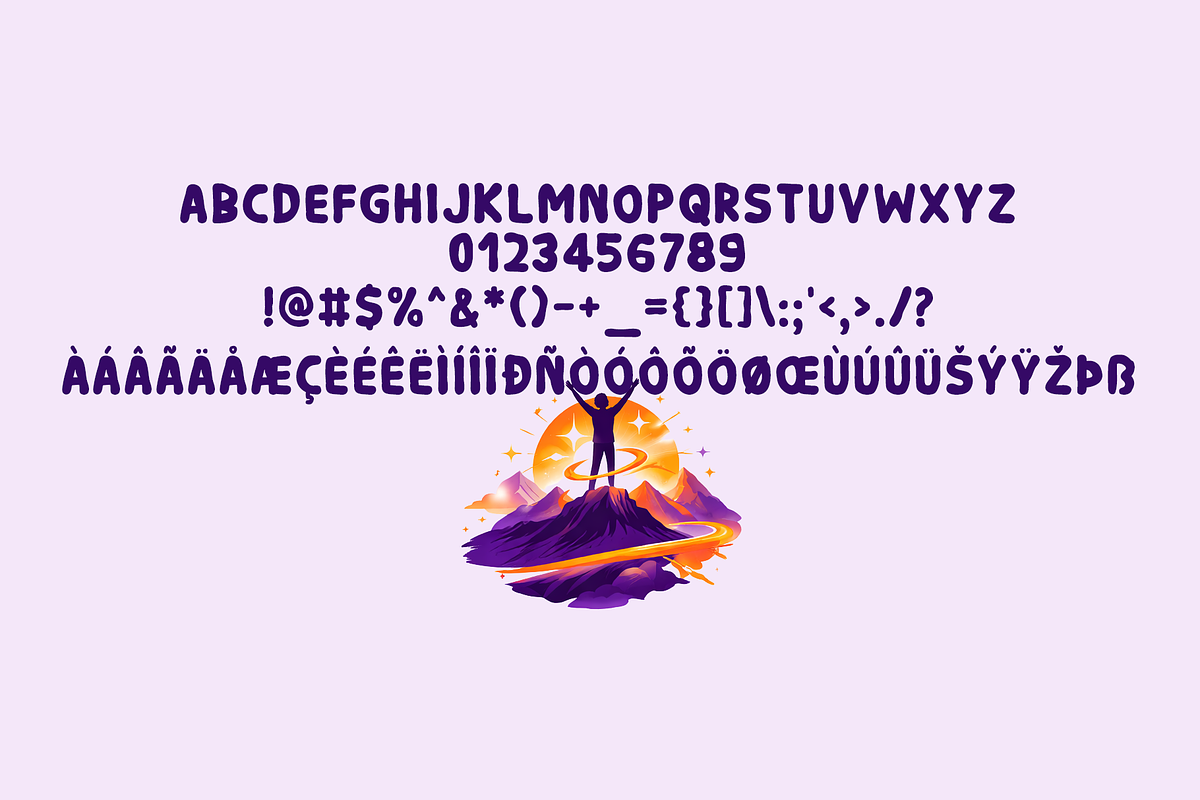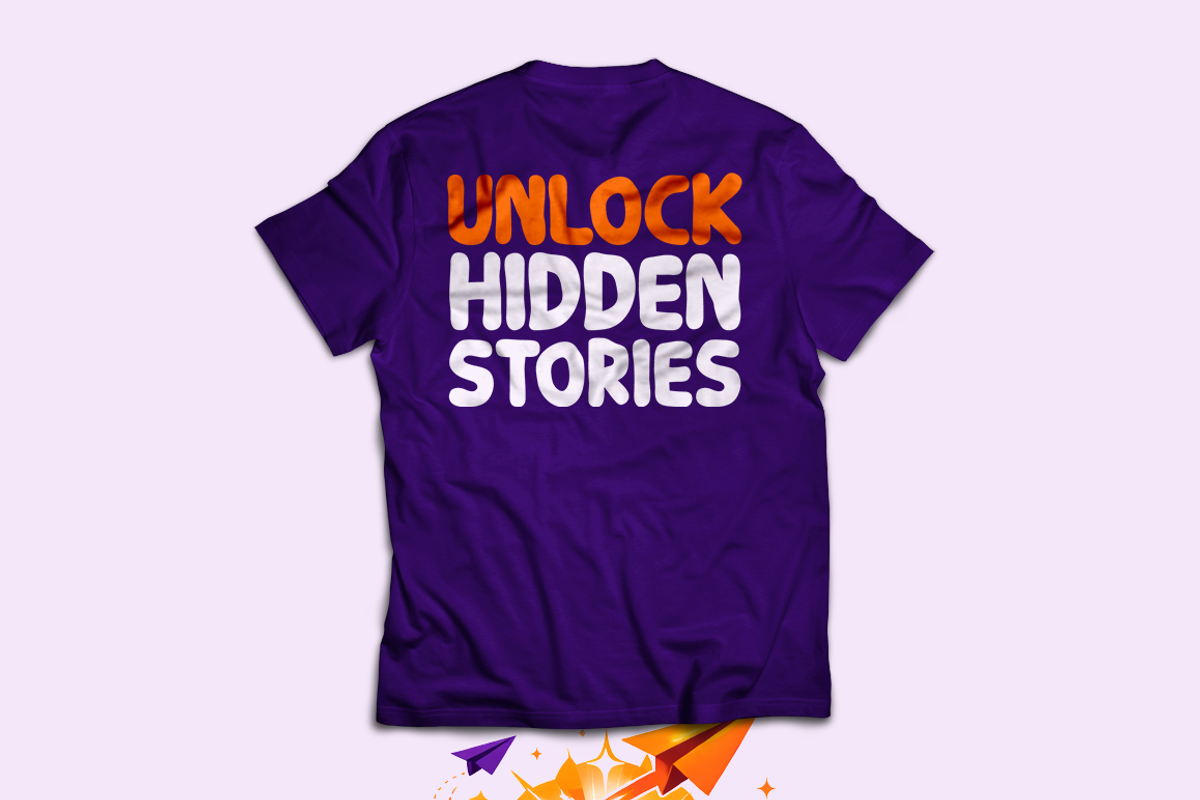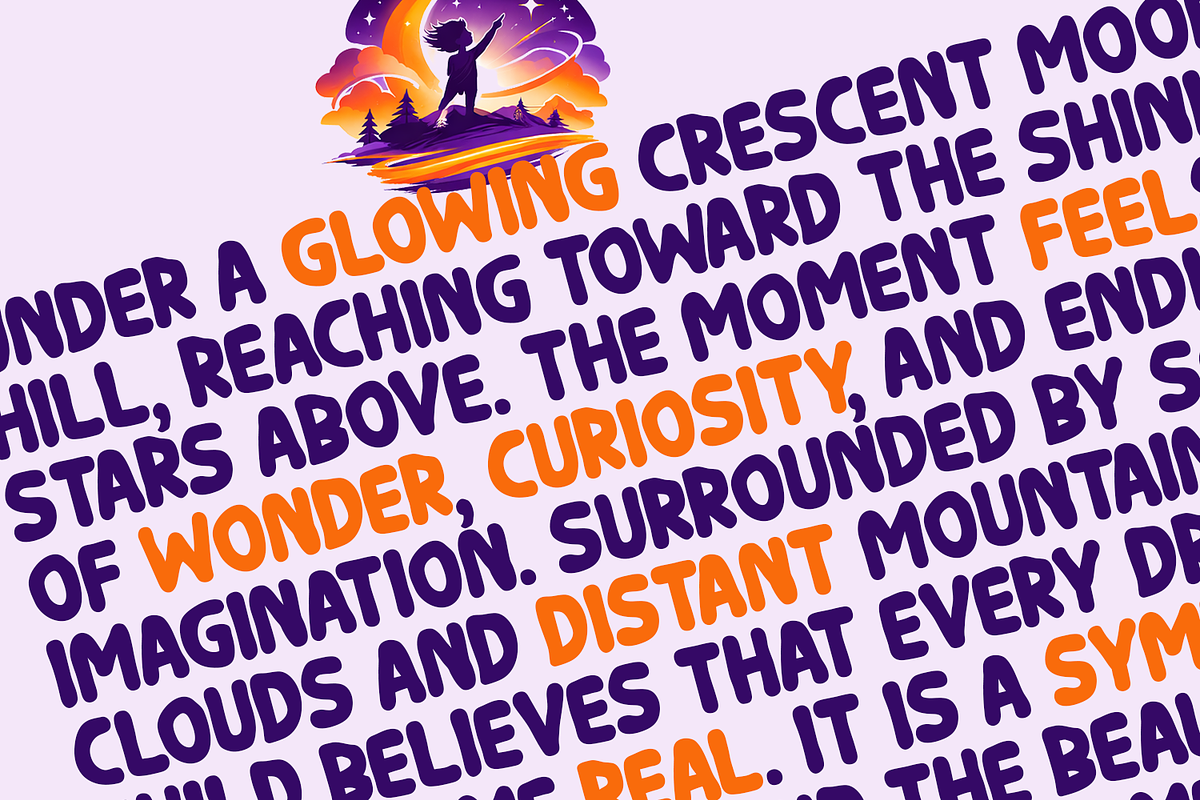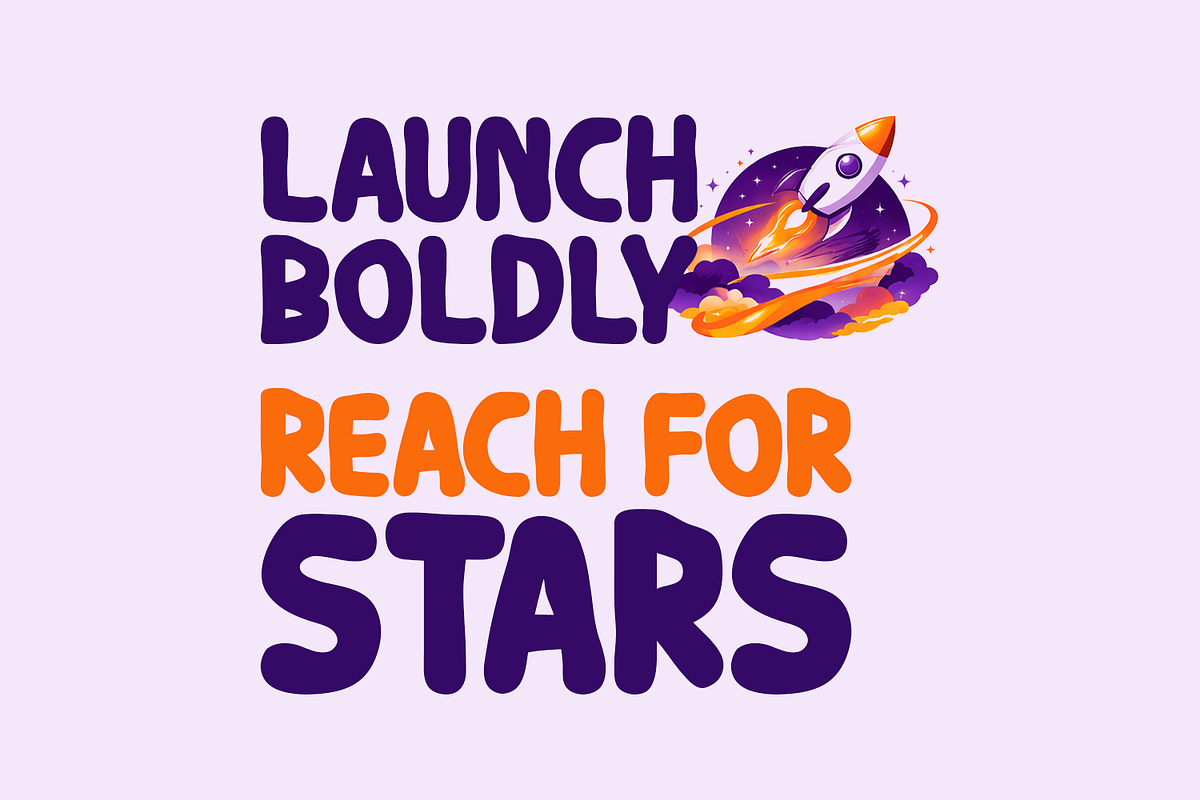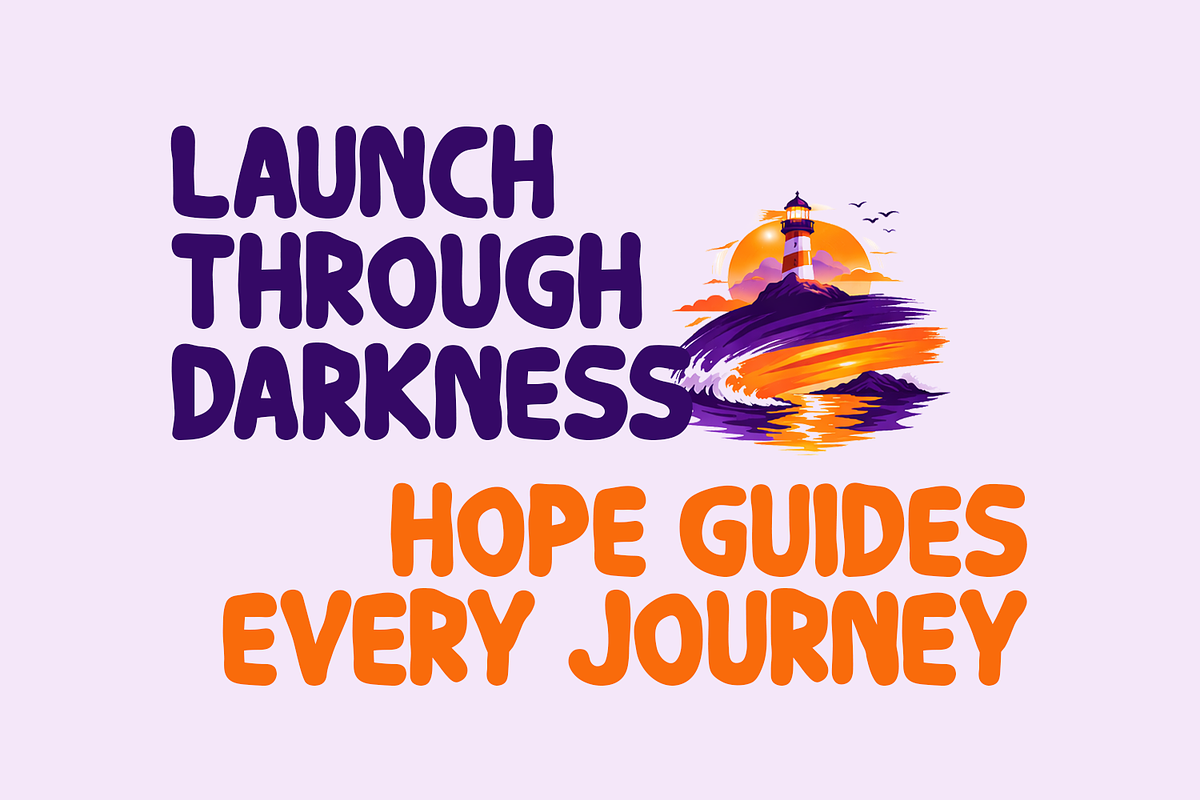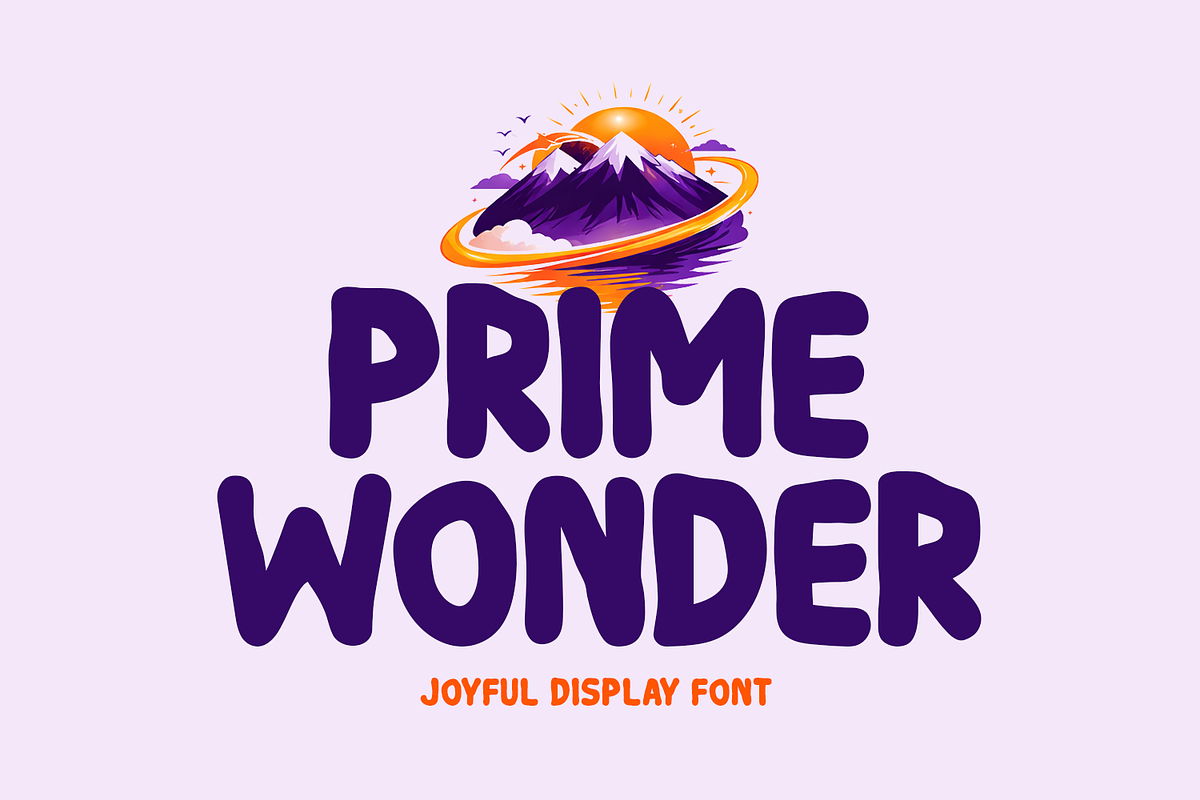
Prime Wonder Typeface
Introducing Good Cause!
Good Cause is a cheerful and playful display font designed to spread positivity and kindness through creative typography. Its smooth curves and friendly letterforms create a warm, uplifting look that instantly attracts attention. The fun and vibrant style makes it perfect for posters, social media graphics, children's designs, greeting cards, and inspirational quotes. Good Cause adds a bright and positive personality to every message, making your designs feel lively, meaningful, and full of good vibes.
Includes a range of multilingual support